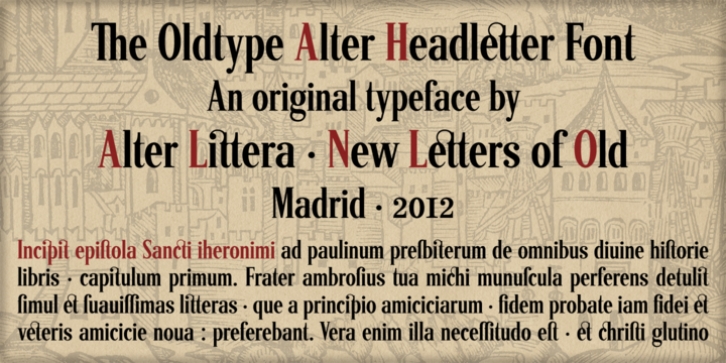
Alter Headletter was designed by José Alberto Mauricio and published by Alter Littera. Alter Headletter contains 1 style.
This is Alter Littera's second original design. It started as an attempt at translating into roman forms the lowercase metrics of classic blackletters, in particular those of The Oldtype "Alter Gotisch" Font. Eventually, the design process led naturally to an innovative and modern re-creation of the overall forms and style of classic bold condensed letters from the early twentieth century, especially those of the "Century Bold Condensed" type from American Type Founders (ATF) Company's American Specimen Book of Type Styles, Jersey City, 1912 (pp. 274-7) [also seen in McGrew, M. (1993), American Metal Typefaces of the Twentieth Century, New Castle: Oak Knoll Books (pp. 76-7)].
In addition to the usual standard characters for typesetting in modern Western languages, the font includes a comprehensive set of special characters, alternates, ligatures and ornaments, plus Opentype features, that can be used for creating distinctive and attractive texts with virtually unlimited variations. The glyphs are clean, smooth and definitely readable, so the font will be suitable not only for large titles and headings, but also for full text pages.